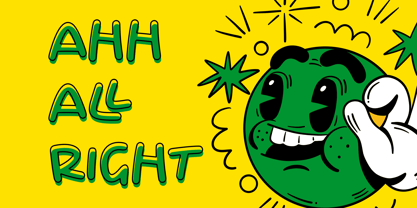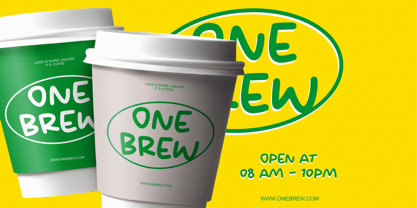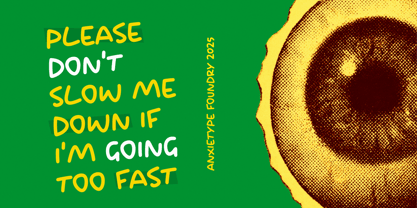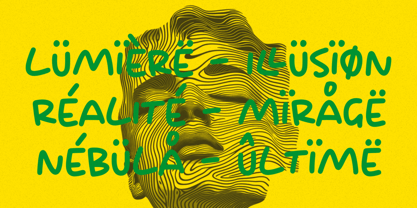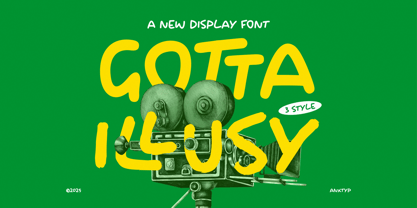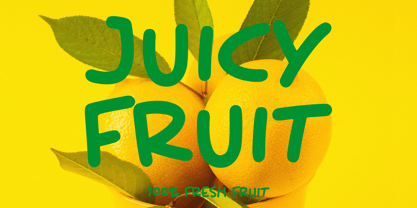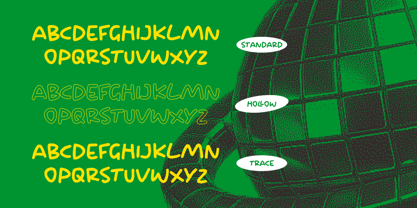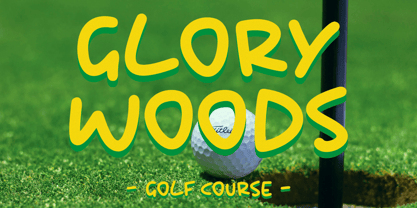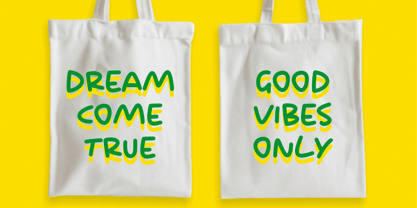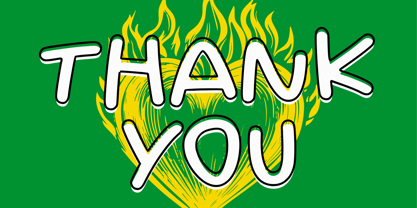
Gotta Illusy
by Anxietype Foundry
The Gotta Illusy Font Family was designed by Bias Surya Buana, Annas Rifky Anhar and published by Anxietype Foundry. Gotta Illusy contains 3 styles and family package options.
Experience the elegance and flair of Gotta Illusy, more than just a decorative display font - an embodiment of chic refinement in the realm of typography. This sophisticated font offers three unique looks: Regular, Hollow, and Trace, lending that extra trendy edge to all applications. Whether designing distinctive branding, generating standout stickers, embarking on cutting-edge machine cut projects or laying the groundwork for trailblazing design themes, Gotta Illusy flawlessly fills the role. This font is the perfect harmony of panache and practicality, making it an exceptional choice for design projects desiring a dash of novelty and exclusivity. Propel your artistic vision to unexplored heights with the Gotta Illusy Font.